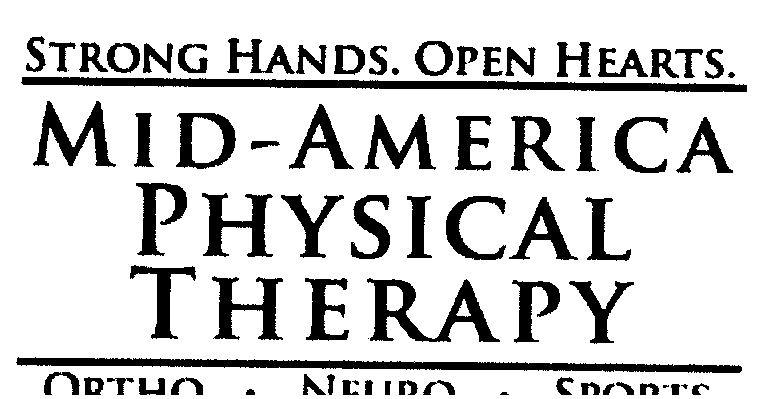
This is a "do over".....uploaded a better photo this time. Hoping to I.D. this FONT.
Disagree on Galliard. This was answered correctly yesterday. The font that was used to start is Trajan Bold. It appears to have been bolded up further with strokes and the rest of the variance is due to the bad image.
further checking....I agree Fred. Definately not Gilliard family. The tops of the letters disagree with the sample.
I'm kind of surprised that this is your first call for Trajan. It was a top ten seller for Adobe for several years and is to a point of overuse in movie titles and other areas. Over on Palm Beach, at least half the businesses there use Trajan. The design was based on carved letters in the "Trajan Steps" of ancient Rome ... hence it's all caps. It has a high subliminal message of wealth and class.
As to the small caps setup, you can either superscript one or the other weights. The nicest results will be had by using regular for the initial cap and then using bold for the small caps.
I have had a font like that before but looked and couldn't find it. It's easily identifable with the sans-seriff tops of some letters.